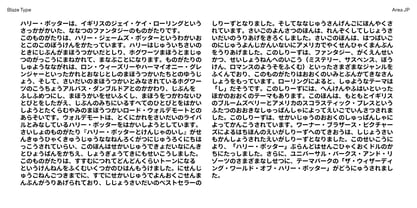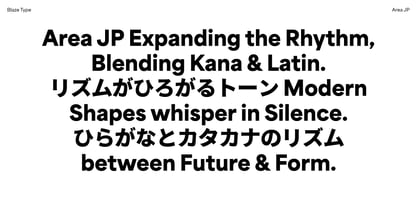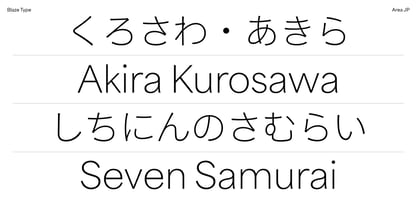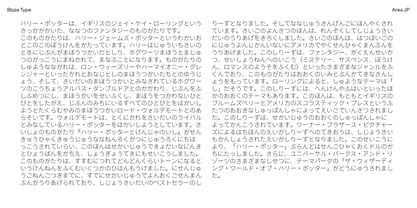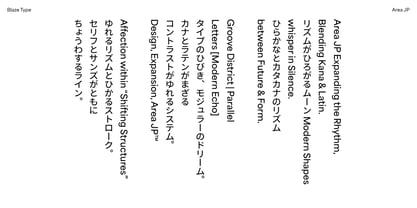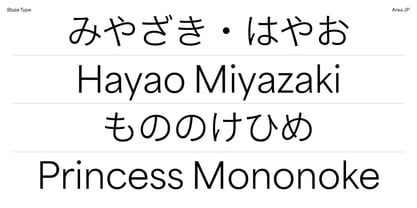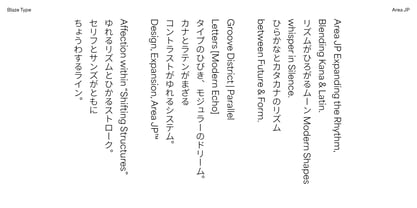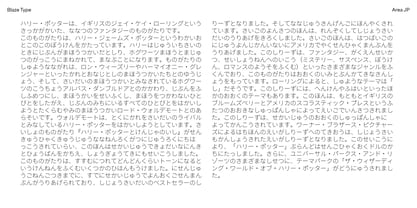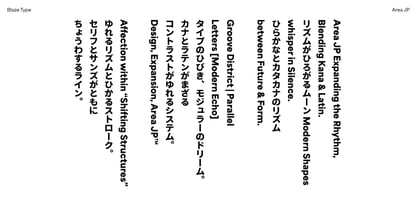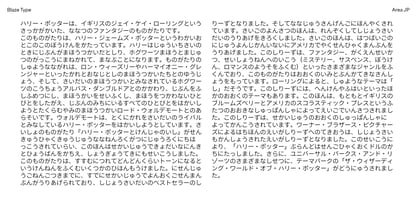
Area JP Variable
von Blaze Type
Die Schriftfamilie Area JP Variable wurde von Matthieu Salvaggio entworfen und von Blaze Type veröffentlicht. Area JP Variable enthält 1 Stile. Mehr über diese Familie
Area JP is the Latin+Japanese (Kanas) support of Area Font Family. Supporting both Horizontal and Vertical writing system. Area is a variable geometric font family that takes inspiration from architecture. Revolving around two width: Normal and Extended, matching italics. Like any piece of architecture, the design process of Area started with a stable modular geometrical structure. Once the foundations are laid, its envelope slowly unfolds into a more quiet neogrotesque robe, offering a solid base for any reading experience thanks to its smooth grey. Far from being ornamental, Area inktraps have been planned from A to Z to offer the assurance that even in situations that are trickier and require the use of smaller text, everything will remain steady as steel.